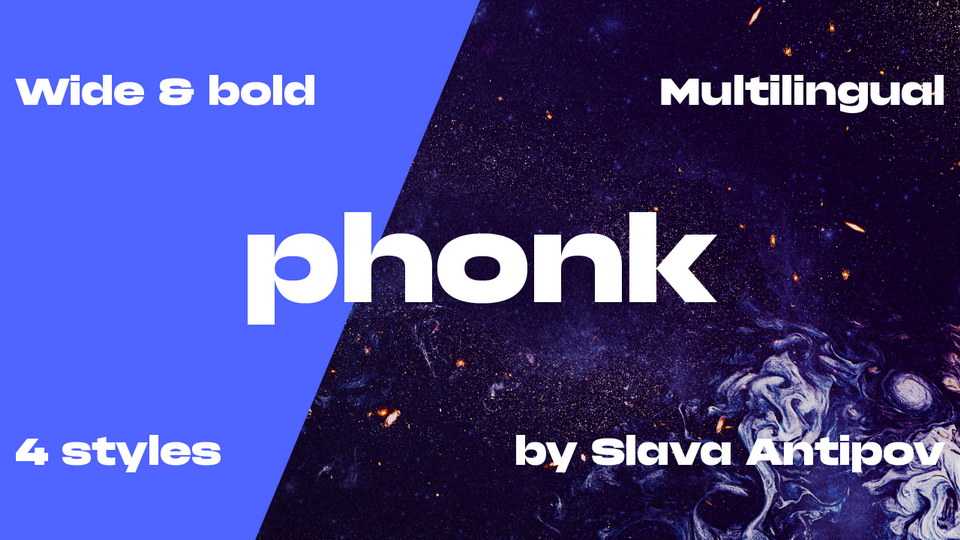
Download Phonk font, a quite bold and wide typeface. It’s great for headlines because it is a good eye-catcher. Phonk font can also be used well for logos and other typographic experiments.
Designer: Slava Antipov